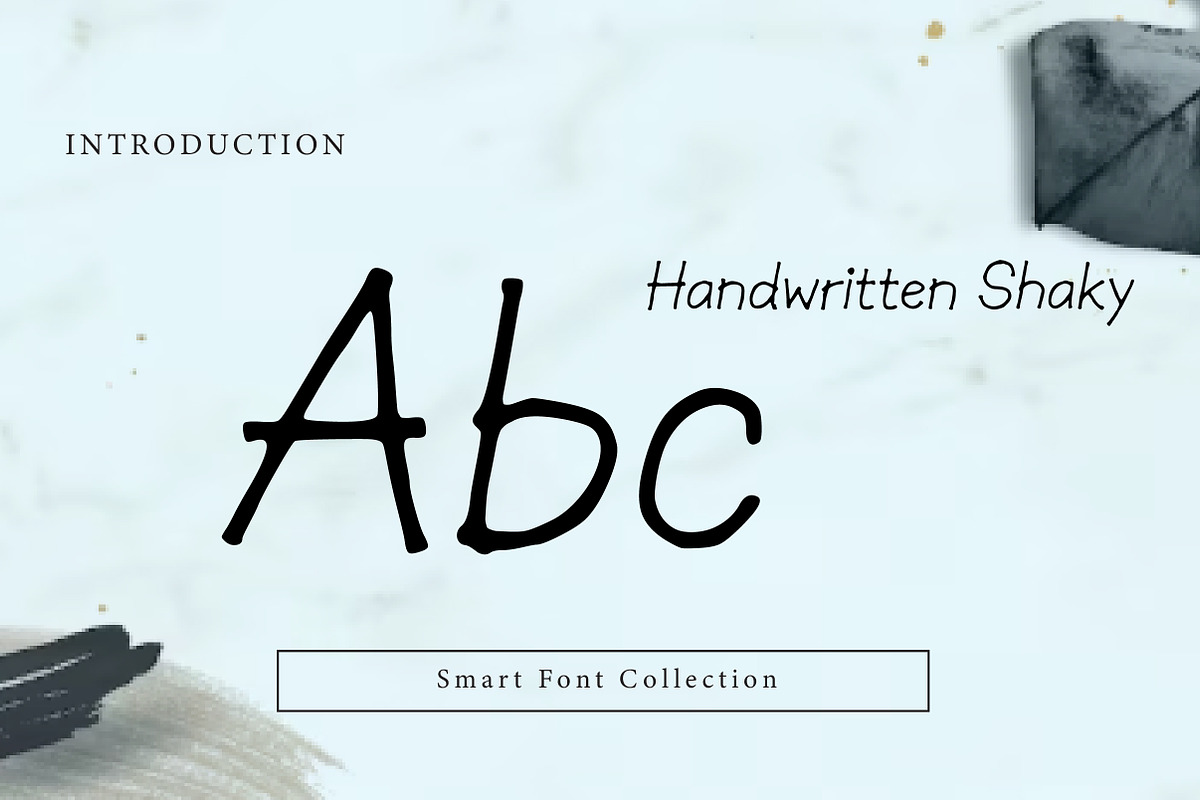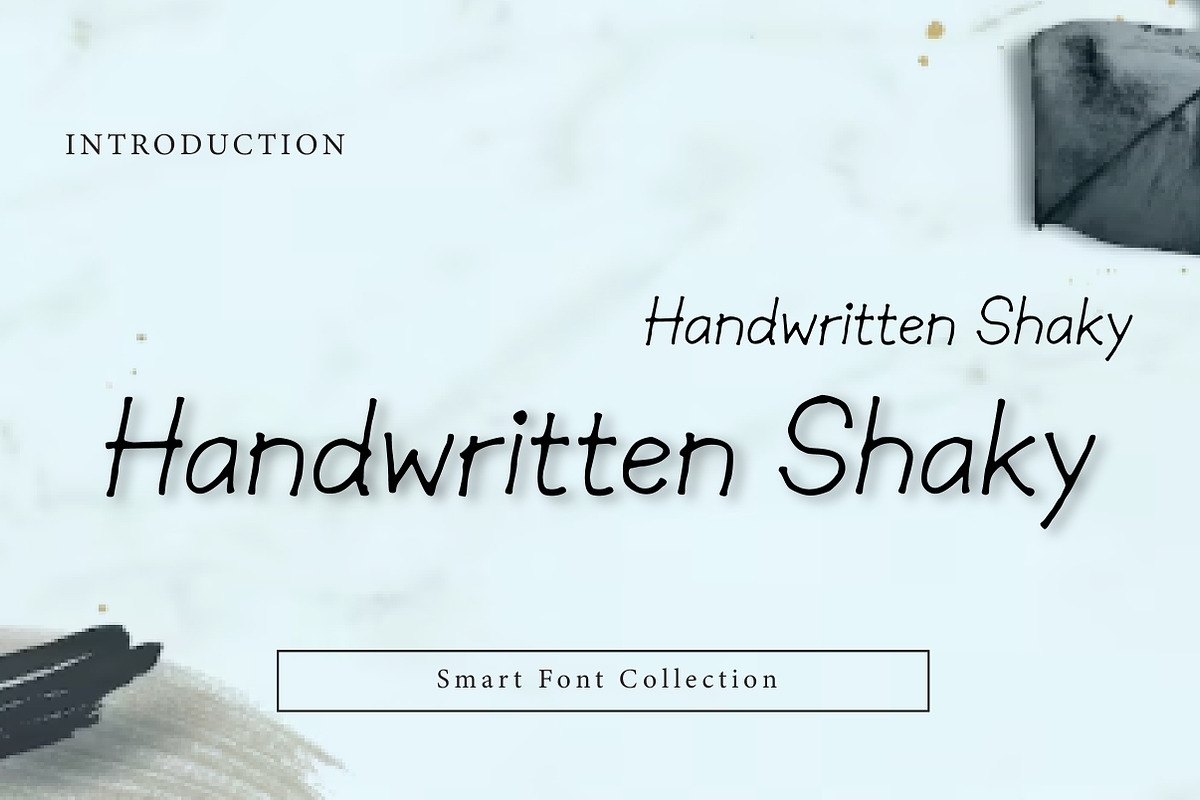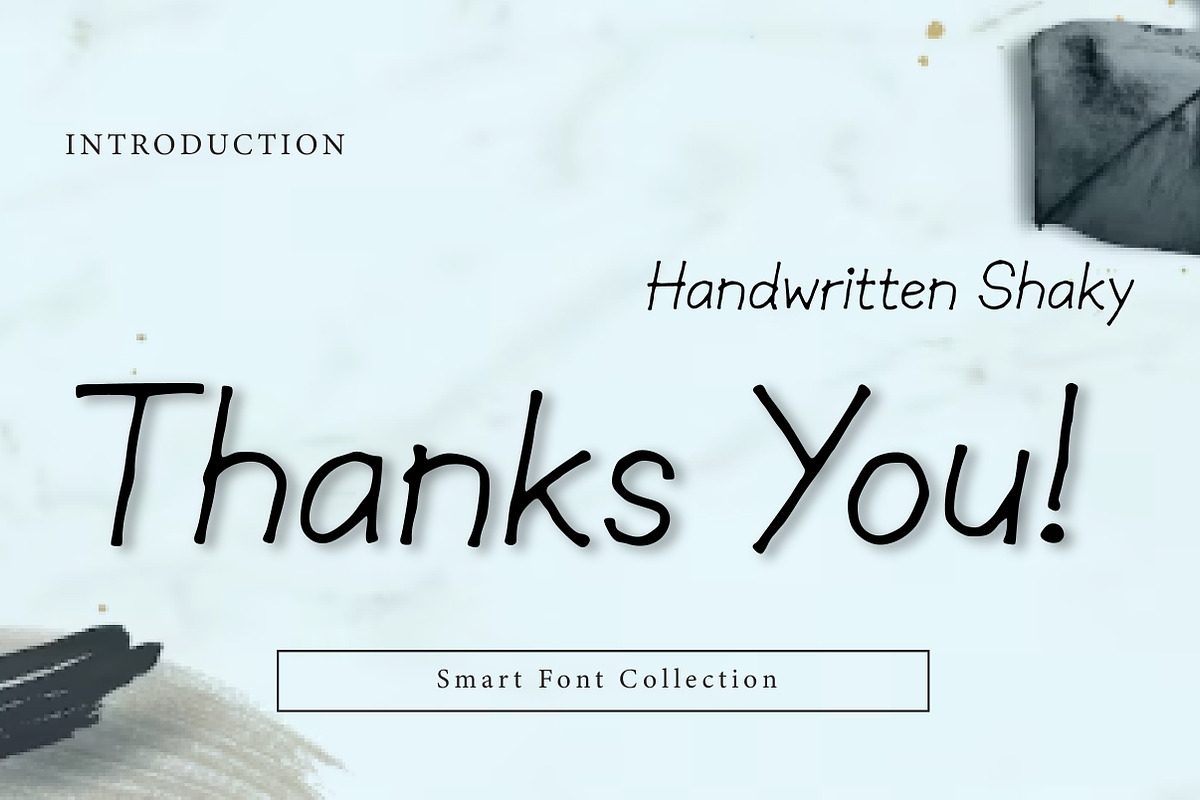
Handwritten shaky
Handwritten Shaky is a casual, natural, and expressive handwritten font designed to capture the imperfect charm of real handwriting. With its slightly shaky strokes and organic flow, this typeface brings a human, friendly, and authentic feel to your typography—perfect for designs that need personality and warmth.
This font is great for creators who want a handwritten style that feels realistic and unpolished, giving your text a true hand-drawn vibe. Handwritten Shaky works beautifully for notes, quotes, personal branding, social media posts, journaling designs, greeting cards, handmade product packaging, stickers, and creative projects.
Whether you’re designing a casual logo, making a cute Instagram quote, creating a handmade brand label, or crafting a playful poster, this font adds a relaxed and human touch. It is highly readable, simple, and versatile—making it perfect for both digital designs and print projects.